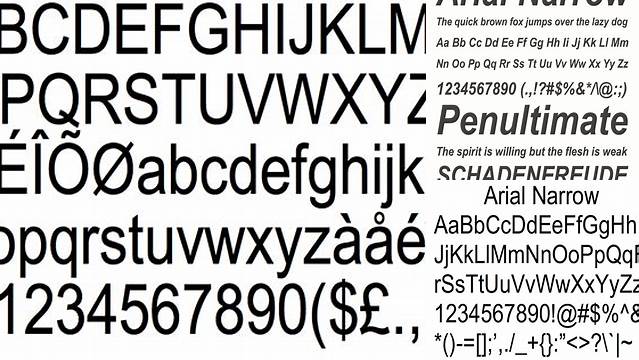
Arial Narrow Google Font: A Designer's Guide
Hey guys! Are you ready to dive deep into the world of Arial Narrow, one of the most versatile and widely used fonts available on Google Fonts? In this comprehensive guide, we’ll explore everything you need to know about this fantastic font, from its history and characteristics to its best uses and how to incorporate it into your projects. So, let's get started and unlock the full potential of Arial Narrow!
What is Arial Narrow?
When discussing Arial Narrow, it's essential to understand its place within the broader Arial typeface family. Arial, in general, is a sans-serif typeface designed in 1982 by Patricia Saunders and Robin Nicholas for Monotype Typography. It was commissioned by IBM as a more cost-effective alternative to the ubiquitous Helvetica. Arial quickly gained popularity and became a standard font in many operating systems, including Microsoft Windows. Arial Narrow is a condensed version of the original Arial, maintaining the same design principles but with a narrower width. This makes it an excellent choice for situations where space is limited, but readability is still paramount.
Arial Narrow’s condensed form factor makes it exceptionally useful in various design contexts. Its design ensures legibility even in tight spaces, which is a critical advantage for projects with strict layout constraints. Think about brochures, newsletters, and websites where every pixel counts; Arial Narrow steps in to provide a solution that doesn't sacrifice clarity for brevity. The font's neutral and clean appearance also means it works harmoniously with a wide array of other fonts, making it a versatile asset in any designer's toolkit. Whether you’re crafting body text or headlines, Arial Narrow’s adaptability shines through, ensuring that your message is delivered effectively and stylishly. Furthermore, its widespread availability as part of Google Fonts makes it accessible to designers and developers globally, democratizing good typography across various projects and platforms.
Arial Narrow distinguishes itself from other sans-serif fonts through its unique blend of practicality and aesthetic appeal. While it shares similarities with Helvetica, Arial Narrow possesses subtle differences in its letterforms that contribute to its distinct character. Its slightly squared-off curves and terminals give it a more contemporary and approachable feel, making it less formal than some of its counterparts. The uniform stroke weight across characters adds to its clean and consistent look, ensuring readability at different sizes. In comparison to other condensed fonts, Arial Narrow strikes a balance between compactness and clarity, avoiding the extreme compression that can hinder legibility. This careful equilibrium is what makes Arial Narrow a reliable choice for lengthy texts and intricate layouts, where maintaining a professional yet accessible tone is crucial. Ultimately, Arial Narrow's design ethos centers on functionality, ensuring that it meets the demands of modern design without compromising on visual appeal.
Key Characteristics of Arial Narrow
The key characteristics of Arial Narrow make it a standout choice for various design applications. One of its defining features is its condensed nature. This means that the font's characters are narrower than those in the regular Arial typeface, allowing you to fit more text into a limited space. This is incredibly useful for projects like brochures, tables, and websites with tight layouts. Despite its condensed form, Arial Narrow maintains excellent legibility, ensuring that your text remains readable even at smaller sizes. This balance between compactness and clarity is one of the font's greatest strengths.
Another notable characteristic of Arial Narrow is its clean and neutral design. The font features simple, sans-serif letterforms with a uniform stroke weight, giving it a modern and professional appearance. This neutrality makes Arial Narrow incredibly versatile, as it can be used in a wide range of design contexts without clashing with other elements. Its understated elegance allows the content to take center stage, rather than drawing undue attention to the font itself. This makes it an ideal choice for body text, headlines, and captions alike. The absence of elaborate serifs or decorative flourishes means that Arial Narrow maintains a sense of clarity and directness, ensuring that your message is conveyed effectively. Furthermore, its consistent letter spacing and carefully balanced proportions contribute to an overall sense of visual harmony, making it a pleasure to read. Whether you’re designing a corporate report or a marketing brochure, Arial Narrow’s clean aesthetic will help you achieve a polished and professional look.
The uniform stroke weight across characters is another vital aspect of Arial Narrow's design. This consistency ensures that each letterform has a balanced and even appearance, which enhances readability and contributes to a cohesive visual experience. Unlike fonts with varying stroke weights, Arial Narrow’s uniformity prevents any particular character from standing out or appearing visually disruptive. This is especially important in body text, where consistency is key to maintaining a smooth reading flow. The even strokes also help the font to render cleanly on screens of different resolutions, ensuring that it looks crisp and clear across various devices. In print, the uniform strokes translate to a balanced and professional appearance, making Arial Narrow a reliable choice for both digital and physical media. The attention to detail in maintaining consistent stroke weight reflects the font's commitment to functionality and legibility, making it a staple in professional design environments.
Best Uses for Arial Narrow in Design
Arial Narrow shines in several design scenarios, making it a go-to font for many professionals. One of the most common applications is in print materials, such as brochures, flyers, and newsletters. The condensed nature of the font allows you to fit more text onto a page without sacrificing readability. This is particularly useful when dealing with layouts that have limited space or require a large amount of information to be presented concisely. For example, in a brochure with multiple sections, Arial Narrow can help you maintain a clean and organized look while maximizing the use of available space. Its clear and simple letterforms ensure that readers can easily digest the content, even when the text is set at a smaller size.
In web design, Arial Narrow is an excellent choice for headings, body text, and navigation menus. Its clean and modern appearance complements a wide range of website styles, from corporate sites to personal blogs. The font's legibility on screens of various sizes and resolutions makes it a reliable option for ensuring a consistent user experience. When used in headings, Arial Narrow can create a sense of hierarchy and structure, guiding visitors through your content. In body text, its readability ensures that users can comfortably read through articles and other long-form content. The condensed form factor is also beneficial for navigation menus, allowing you to fit more menu items without cluttering the layout. Additionally, Arial Narrow’s availability as a Google Font means that it can be easily integrated into your website without requiring users to download or install any additional files. This seamless integration and broad compatibility make it a popular choice among web designers and developers.
Another area where Arial Narrow excels is in tables and charts. The font’s condensed width allows you to fit more data into columns and rows, making complex information easier to present and digest. This is especially useful in reports, spreadsheets, and presentations where visual clarity is crucial. Arial Narrow’s clean and neutral design ensures that the data remains the focus, without the font itself drawing unnecessary attention. Its uniform stroke weight and consistent letter spacing contribute to a balanced and organized appearance, making it easier for viewers to compare and analyze information. Whether you’re creating a financial report or a data-driven presentation, Arial Narrow can help you present your information in a clear and professional manner. The font's ability to maintain legibility in tight spaces makes it an invaluable asset for any data-heavy project, ensuring that your audience can easily grasp the key insights and conclusions.